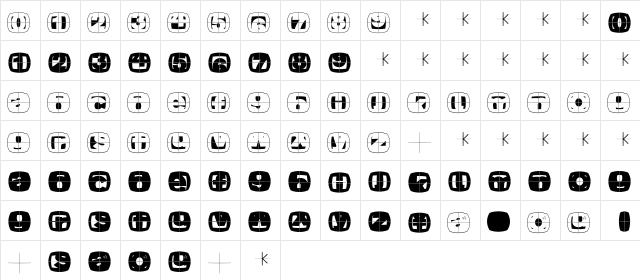
FragmentCapsRound Regular
Design Context for FragmentCapsRound Typeface
FragmentCapsRound softens its letterforms with rounded terminals, giving it an approachable, friendly quality that works well in consumer-facing and digital contexts.
A natural fit for tech startups, health and wellness brands, children's products, and friendly consumer apps.
Font Pairing: Pairs well with a rounded or humanist sans for body copy, maintaining the friendly tone without relying on FragmentCapsRound to carry extended reading.
Pro Tip: Pair FragmentCapsRound with a geometric sans for a balanced system — the rounded softness works as a warm counterpoint to harder-edged companions.